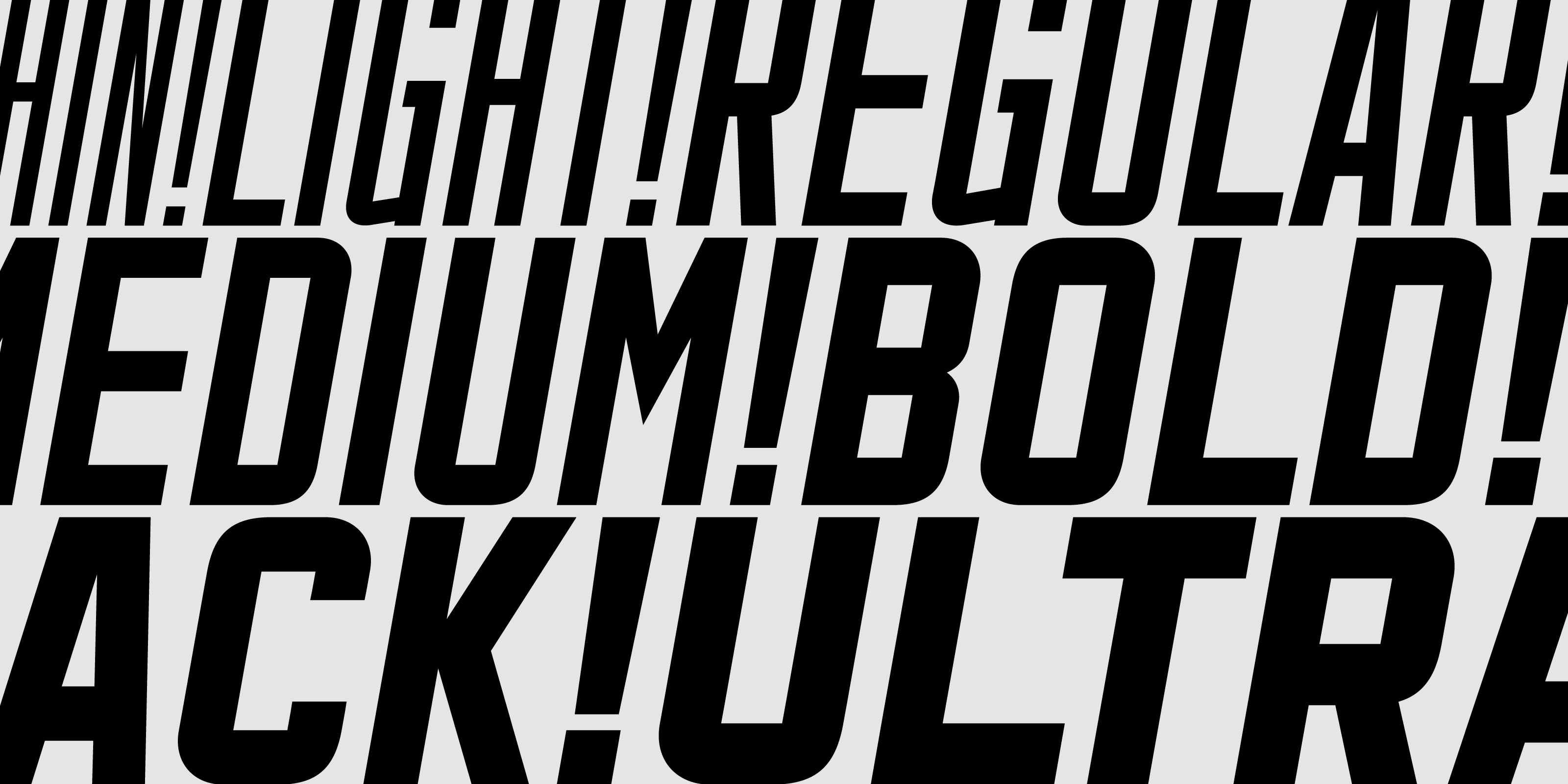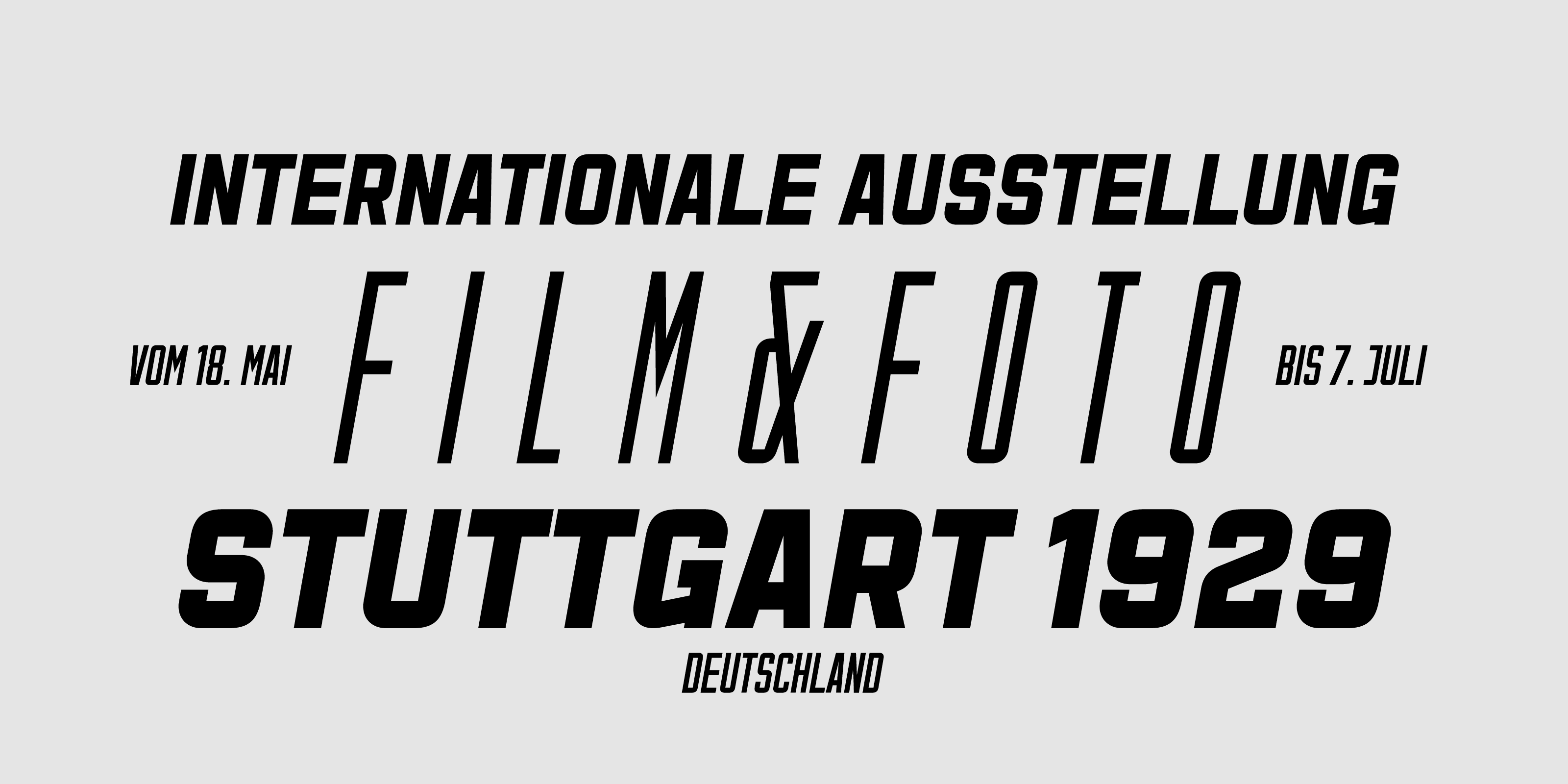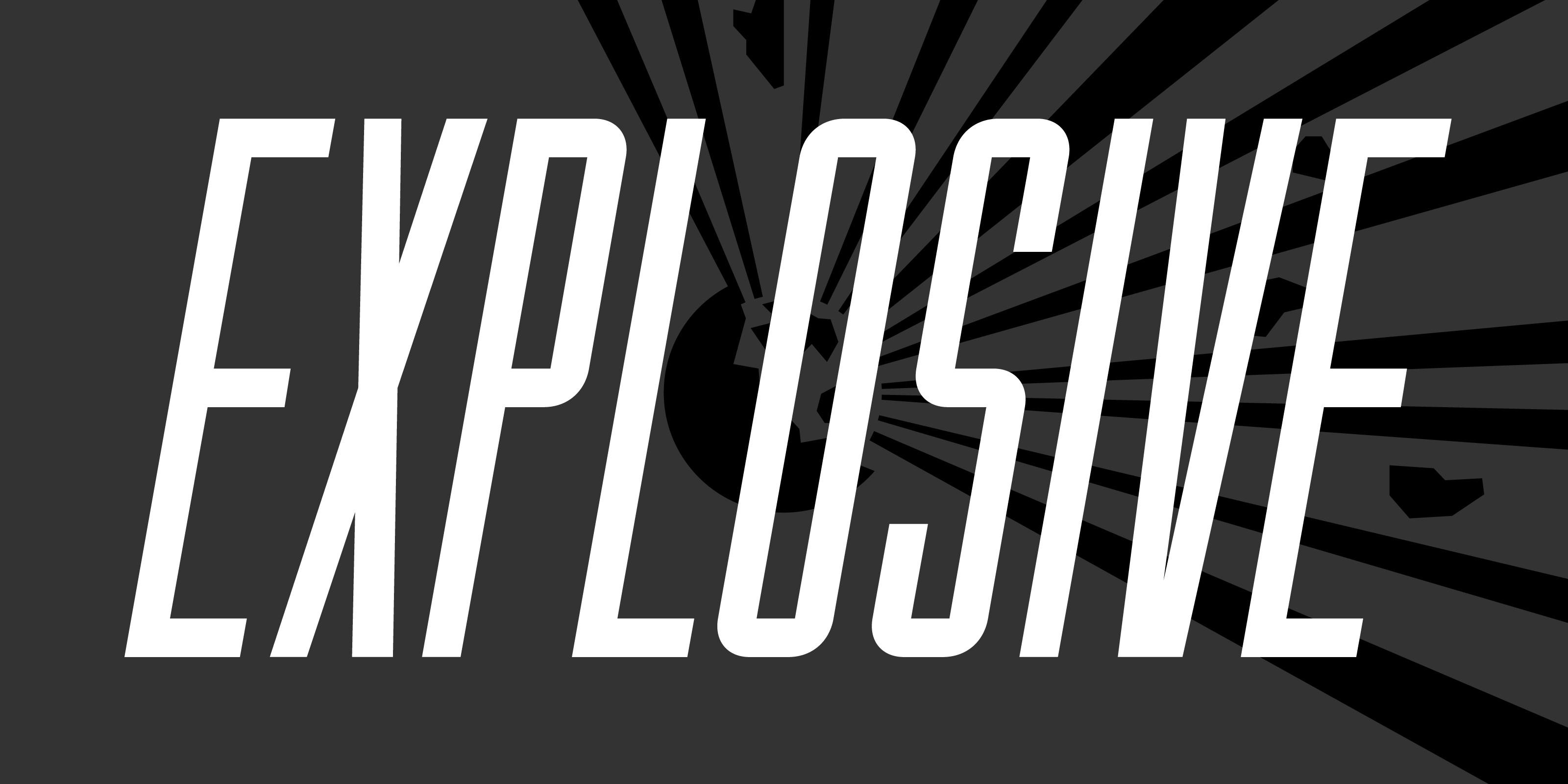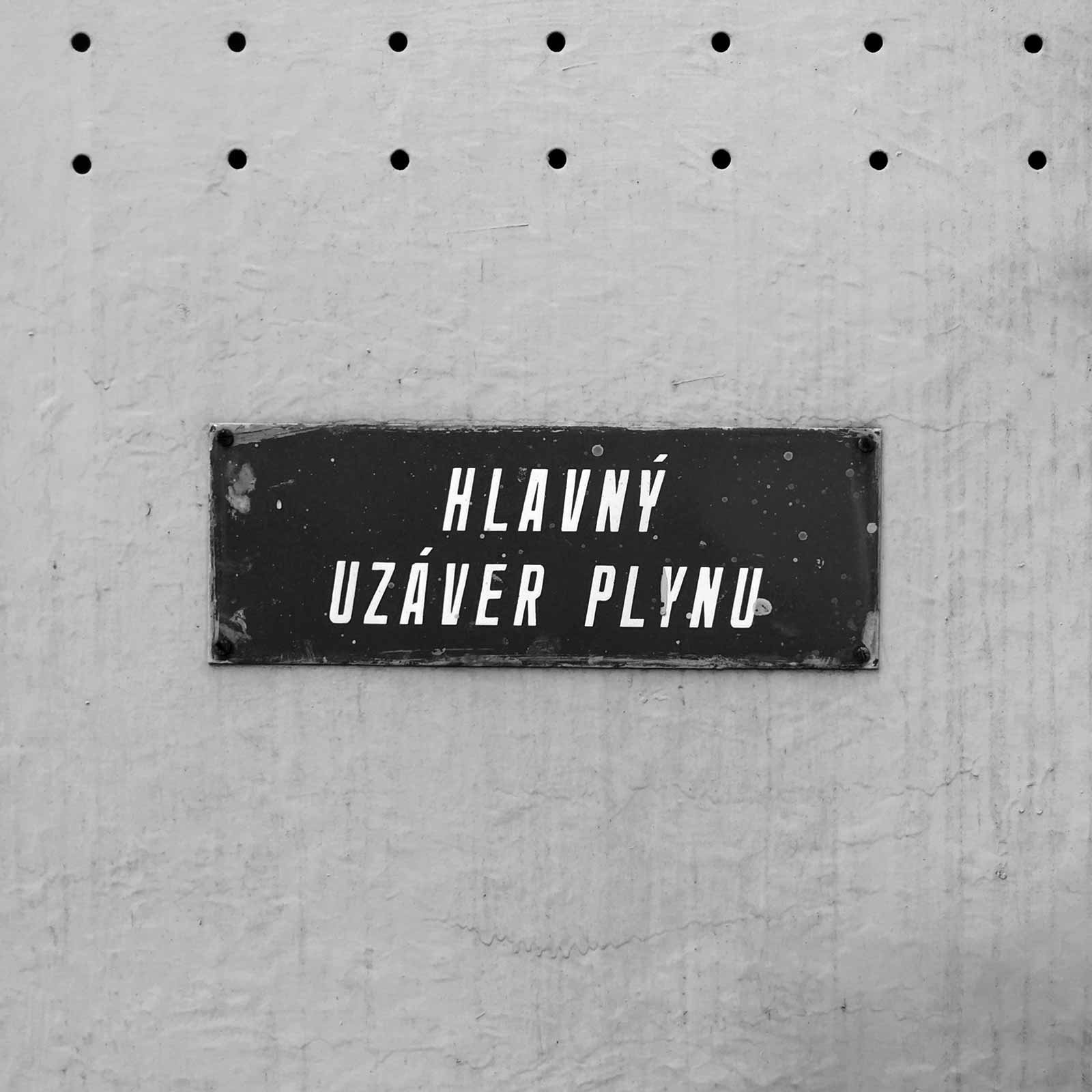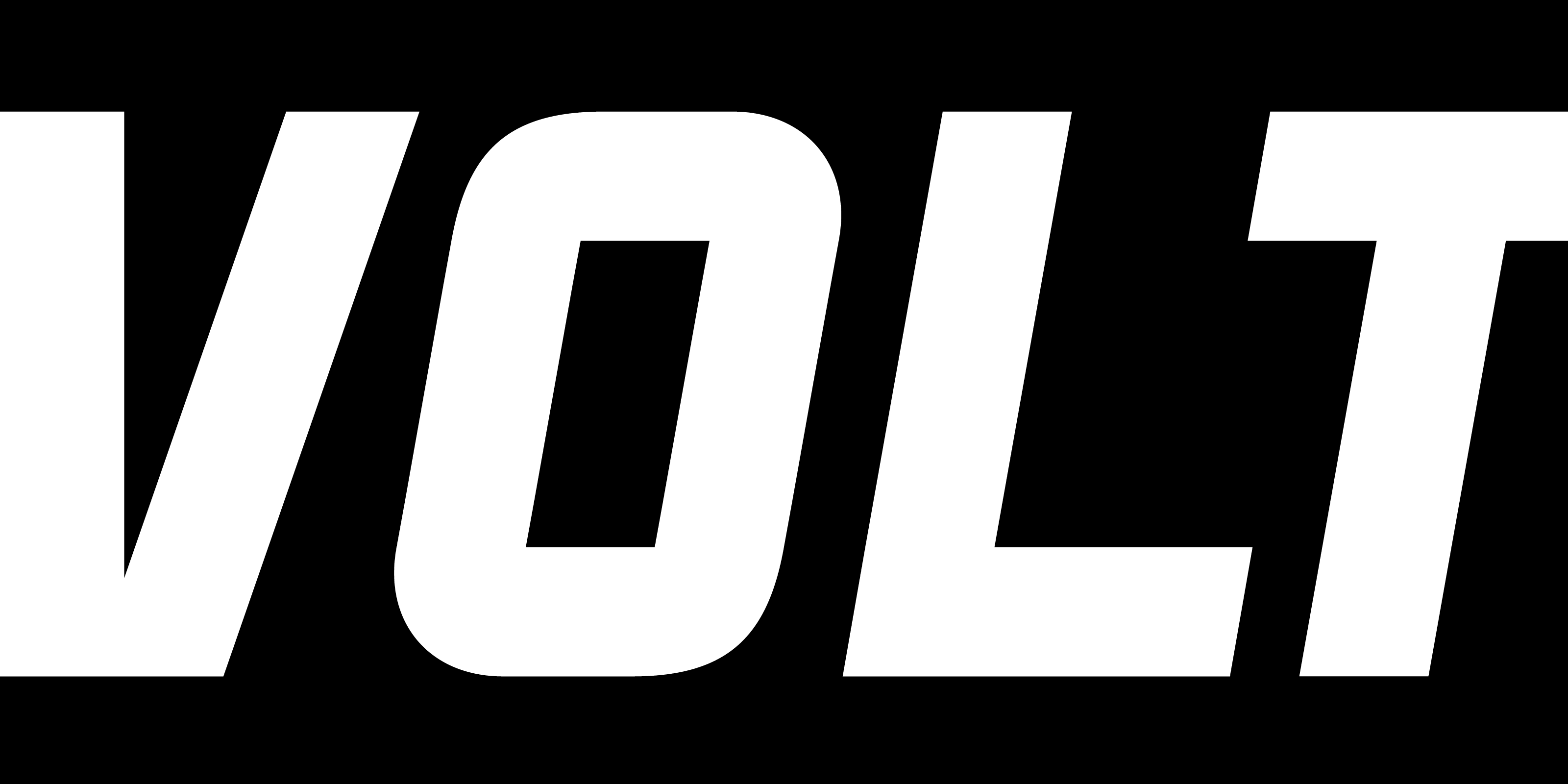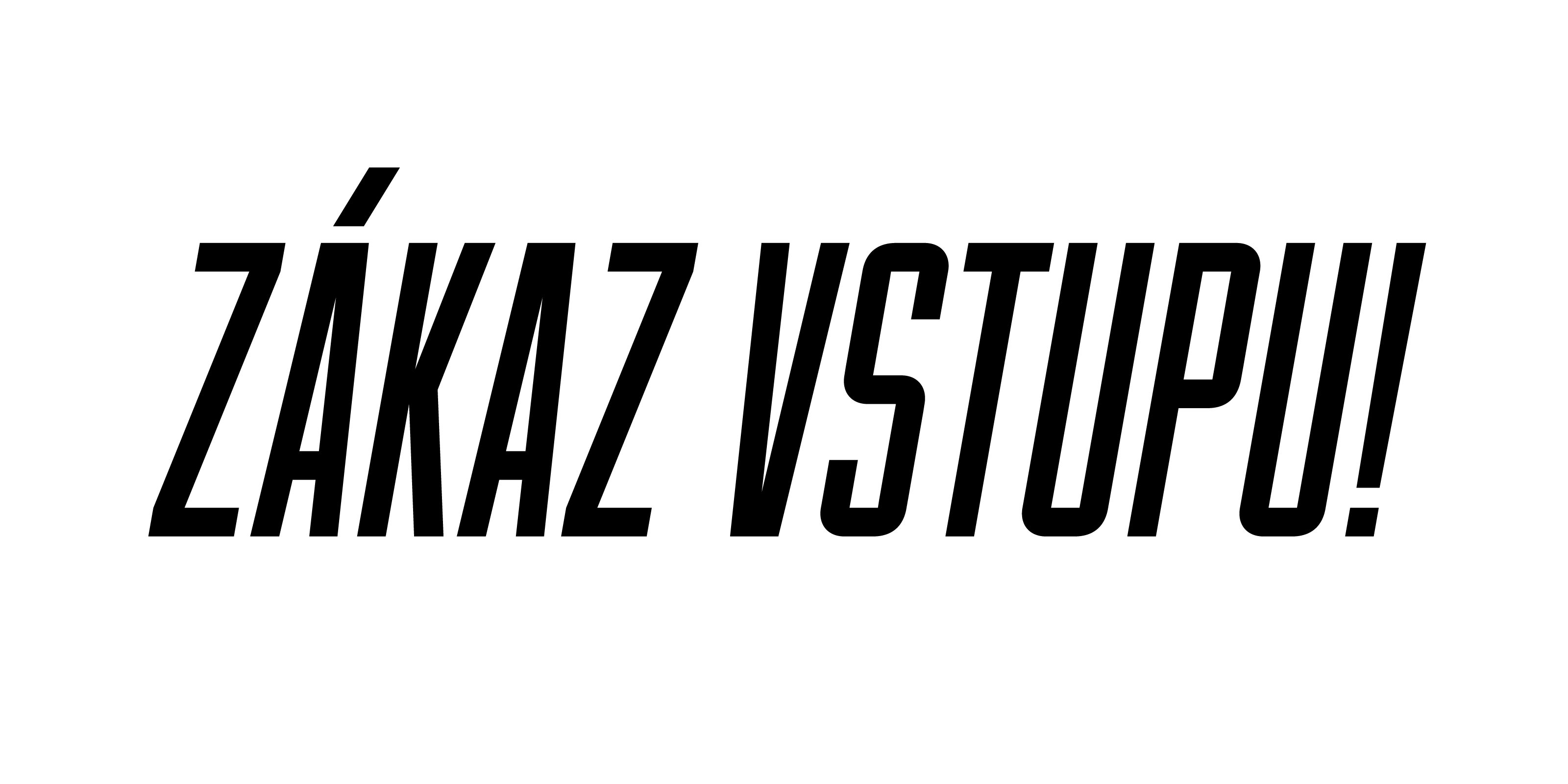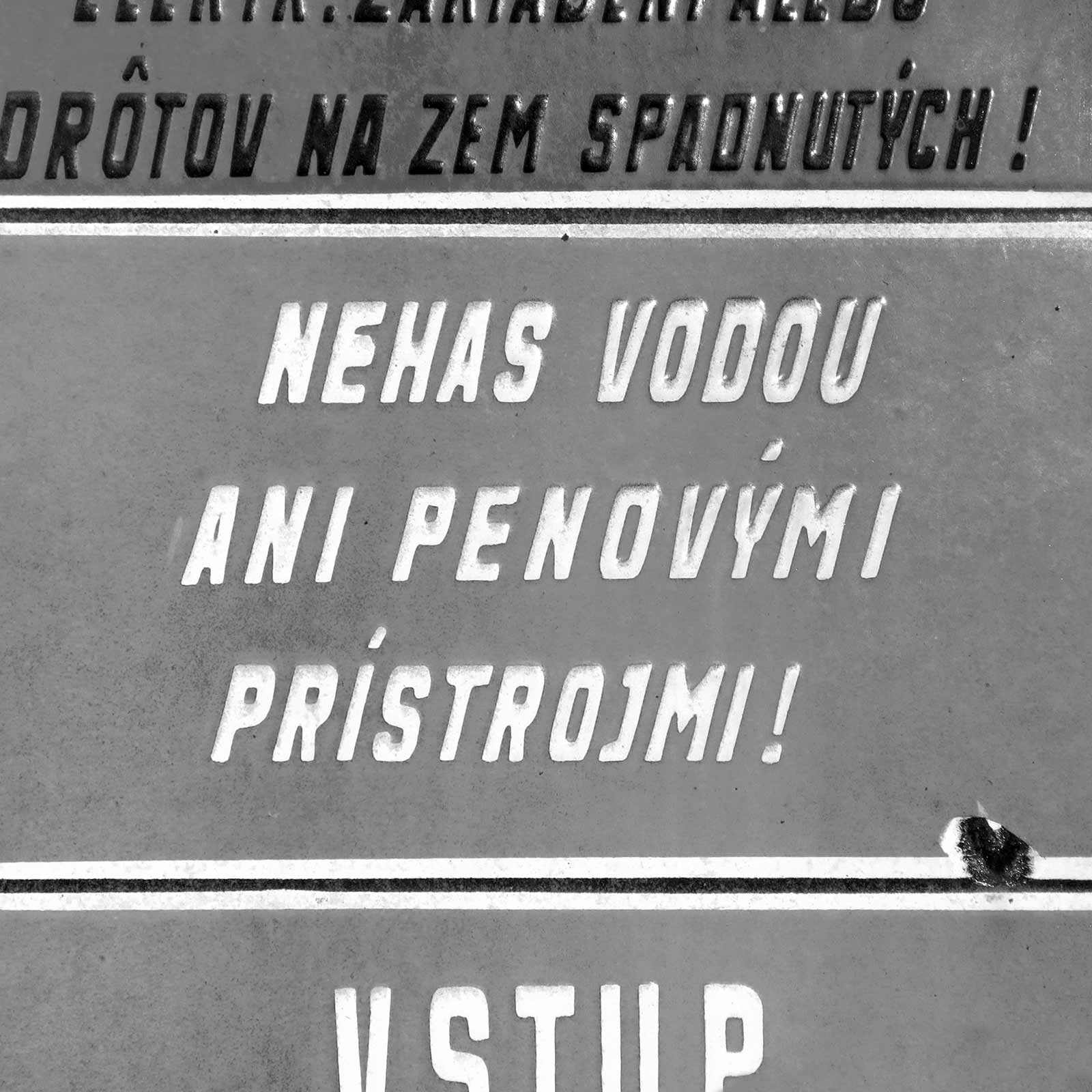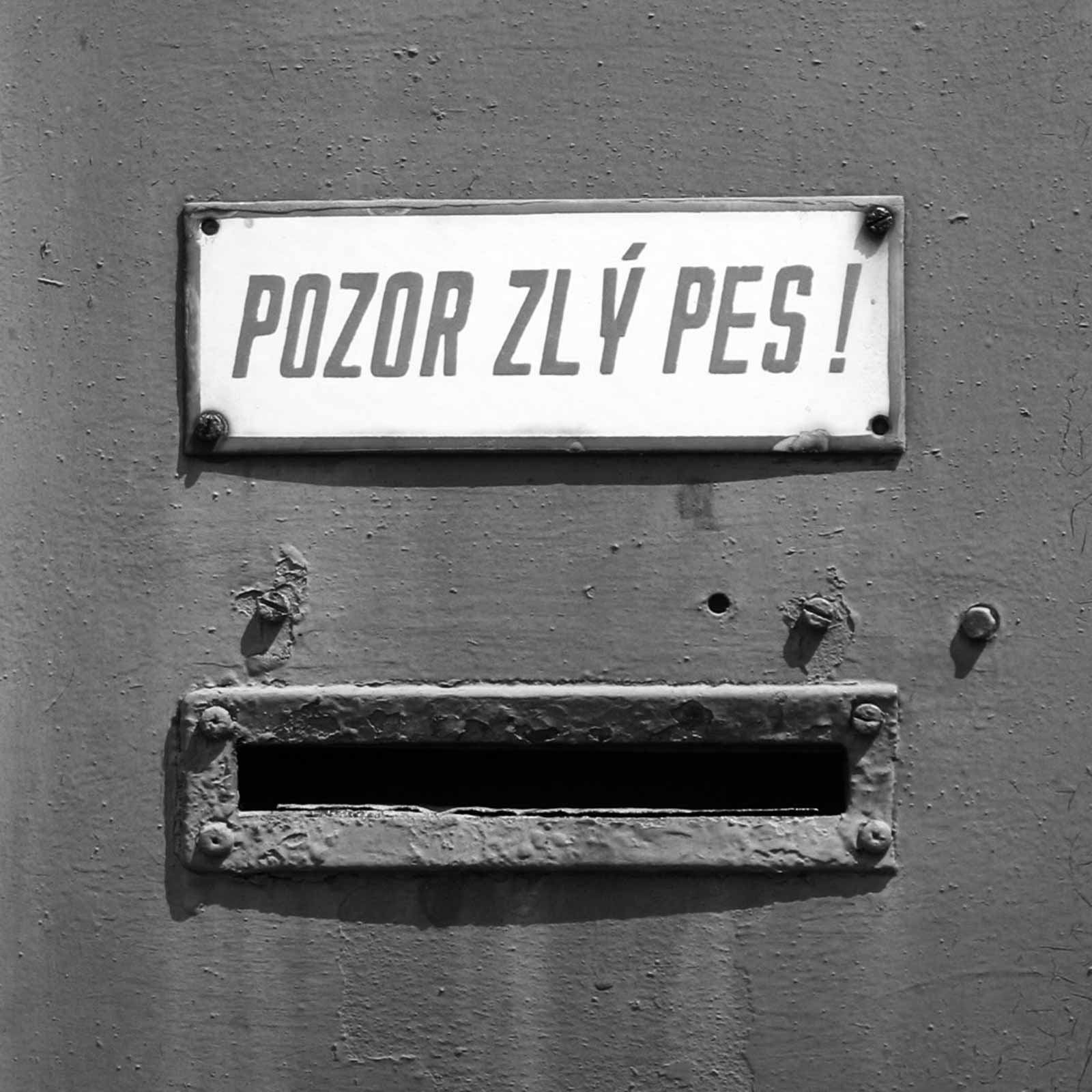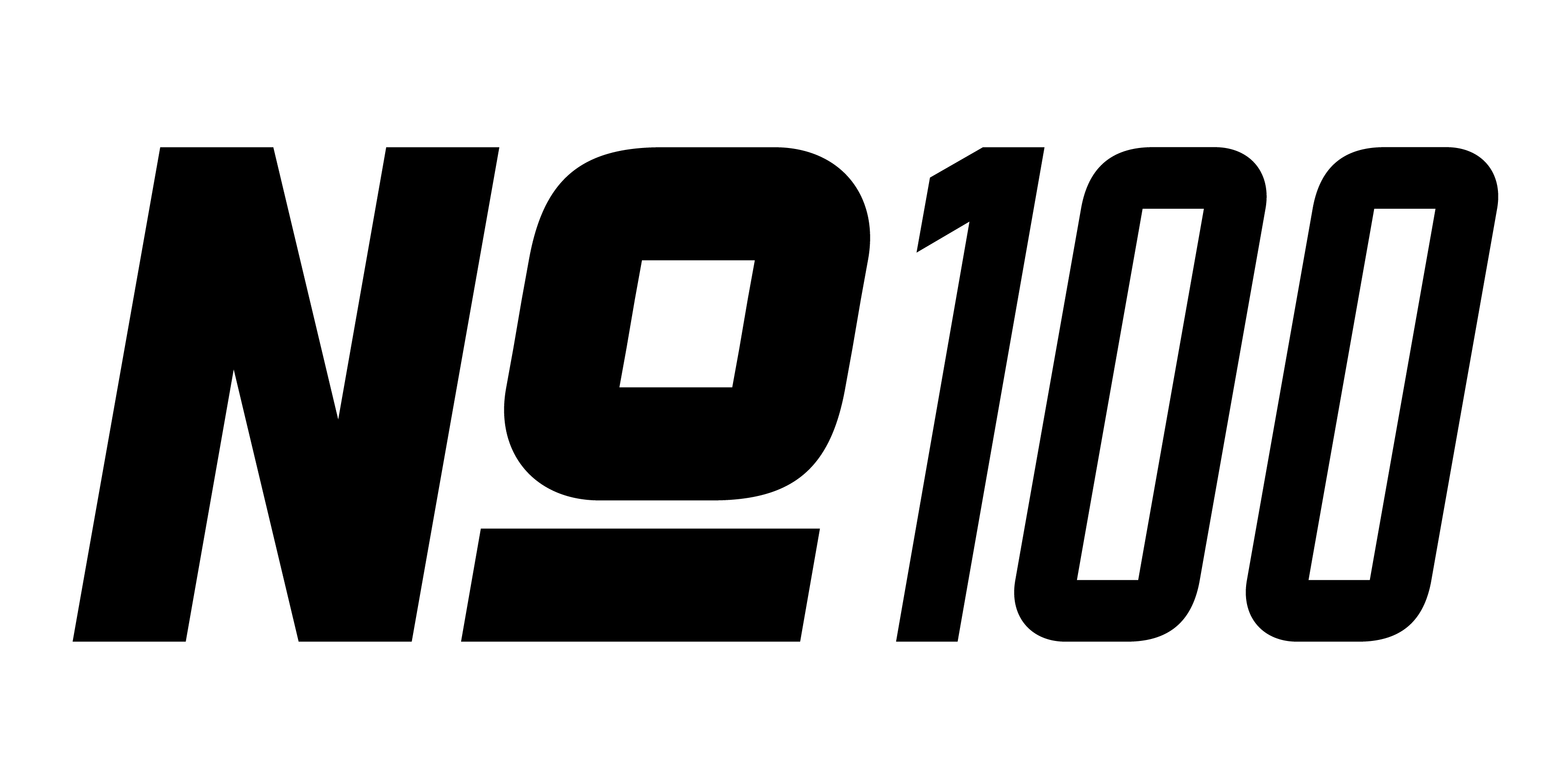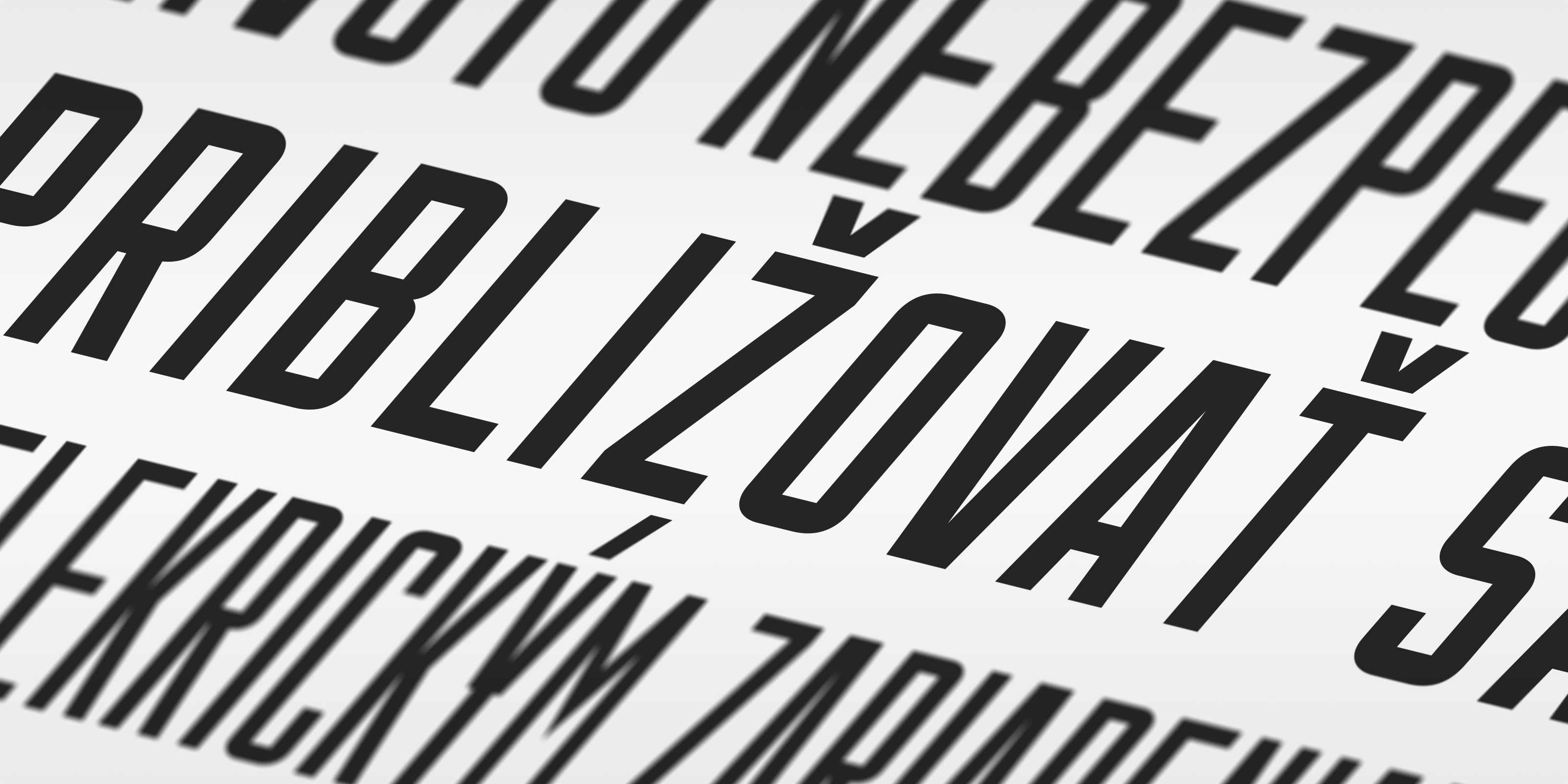
Typeface from warning sings, as it was drawn on paper.
Manual Pozor is a caps-only, utilitarian geometric sans-serif typeface primarily intended for display use consisting of 7 styles ranging from Thin to Black, with no contrast and narrow width.
Manual Pozor supports Basic Latin and Extended Latin and covers over 100 languages. With total of 237 glyphs, it includes the default set of proportional lining figures.
Manual Pozor (Slovak for “warning”) is a digitization of the typeface from old Slovak warning signs. It is an oblique version of Manual Grotesk B, with slightly larger radius of its arcs.
The upright and oblique styles of Manual Grotesk were never used together on a single sign – the upright Manual Grotesk was used to mark streets and buildings and the oblique variant was used exclusively on warning signs.
Because of the size of the letters on these signs – usually they had longer texts – small details and sharp corners were rounded off in the enamel production process. However, Manual Pozor preserves these details and presents them just like they were drawn on stencils by the original sign designers.